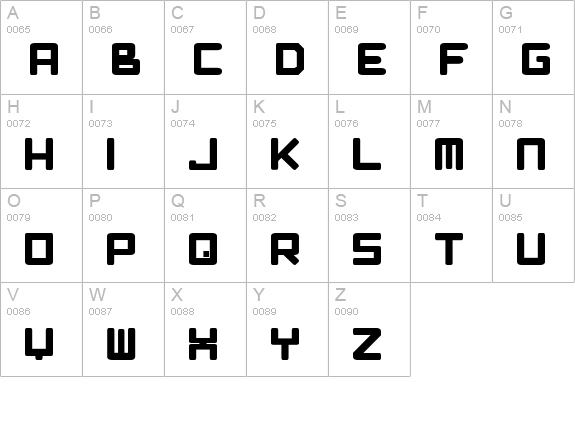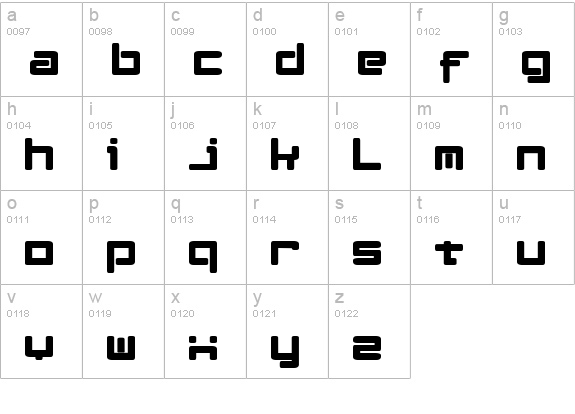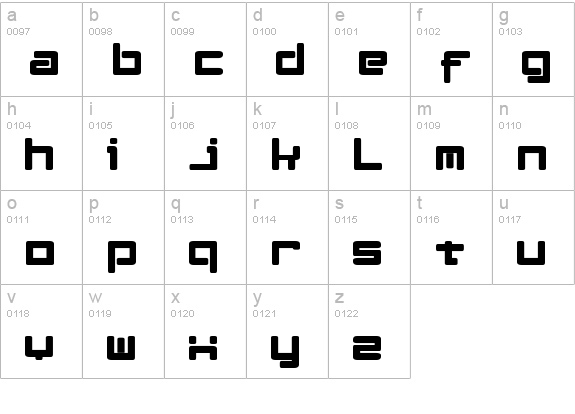
LeftOvers II 3 1 Font Details
LeftOvers II 3 1 font is a beautifully designed typeface that exudes a sense of uniqueness and elegance. With its intricate and stylish letterforms, this font is perfect for adding a touch of sophistication to any project. Featuring a harmonious balance between sharp edges and gentle curves, LeftOvers II 3 1 font captures attention and makes a lasting impression. Its versatility allows it to be used for various purposes, such as branding, advertising, headline design, and more. Whether you are creating a logo, a poster, or a website, this font will effortlessly elevate your design to new heights. What makes LeftOvers II 3 1 font even more appealing is that it is freely available to download at FontsMarket.com. This means that you can enjoy the beauty and functionality of this font without any cost. This generous offer allows designers, creatives, and enthusiasts to access a high-quality font without breaking the bank. With its wide range of characters, including uppercase and lowercase letters, numbers, symbols, and punctuation marks, LeftOvers II 3 1 font offers endless possibilities for creative expression. Its clean and legible design ensures readability, making it suitable for both print and digital applications. Whether you are a professional designer or a hobbyist, LeftOvers II 3 1 font will be a valuable addition to your font library. Its timeless elegance, combined with its free availability, makes it a must-have for anyone seeking to enhance their designs with a touch of class. Download LeftOvers II 3 1 font today at FontsMarket.com and bring your creative vision to life.